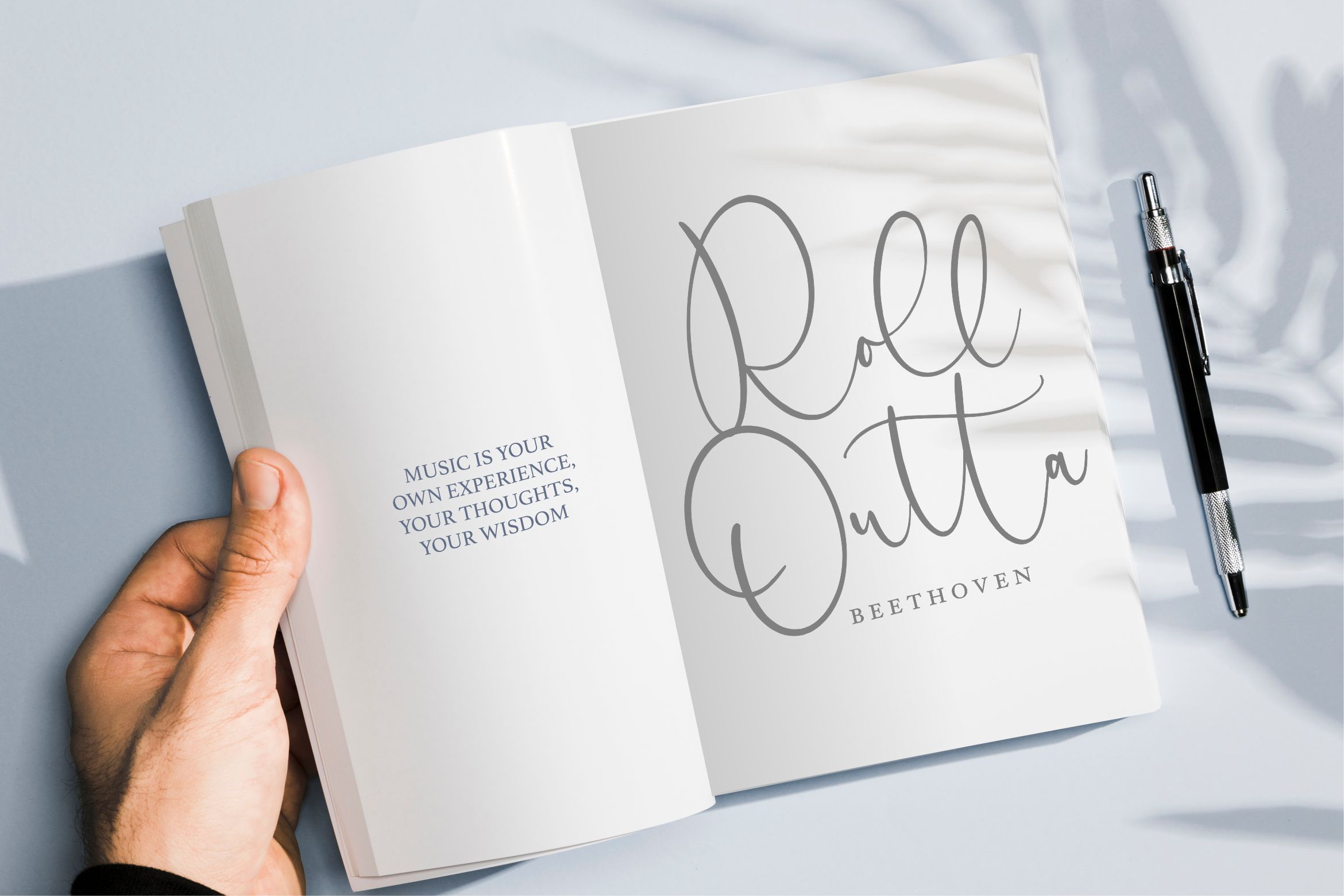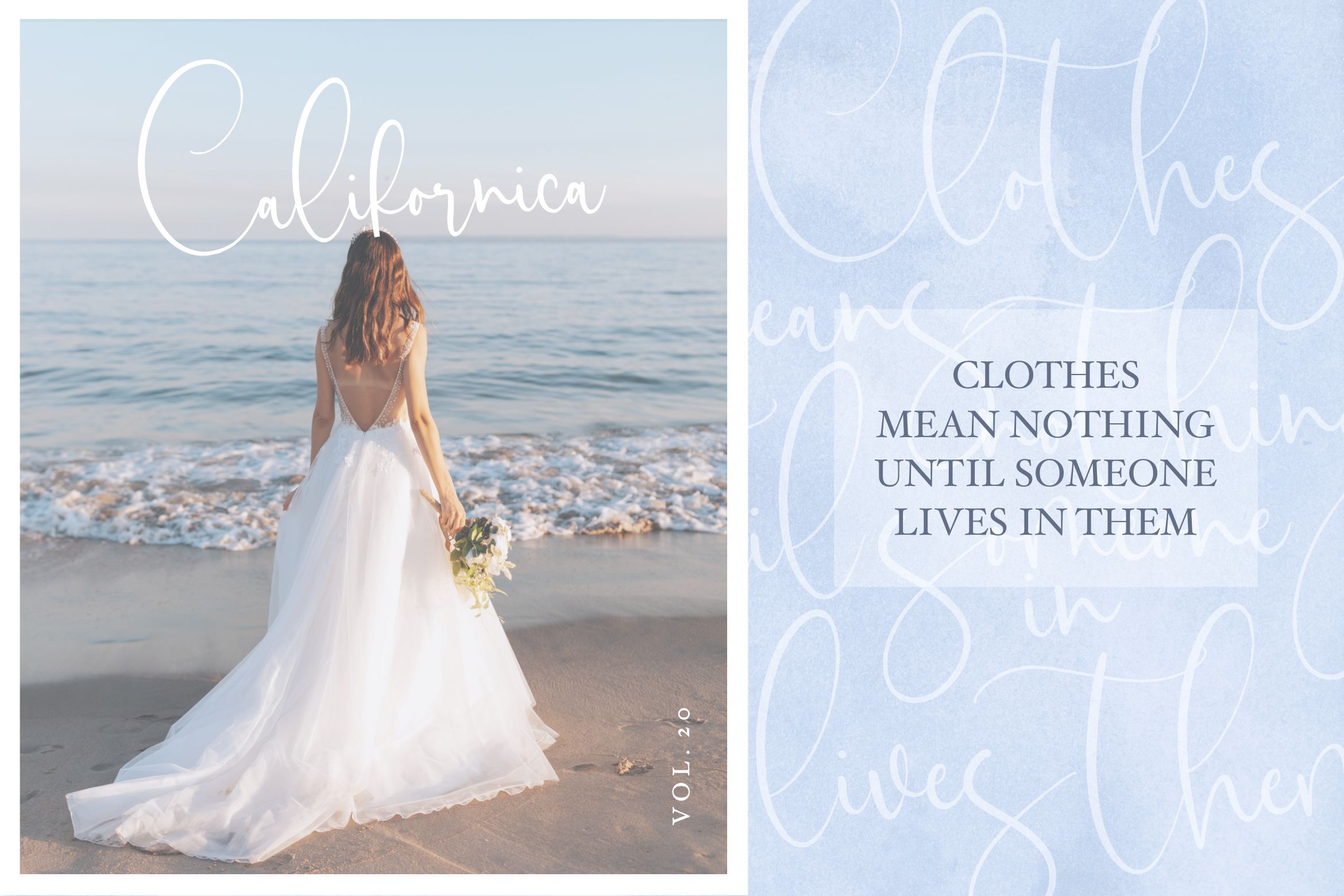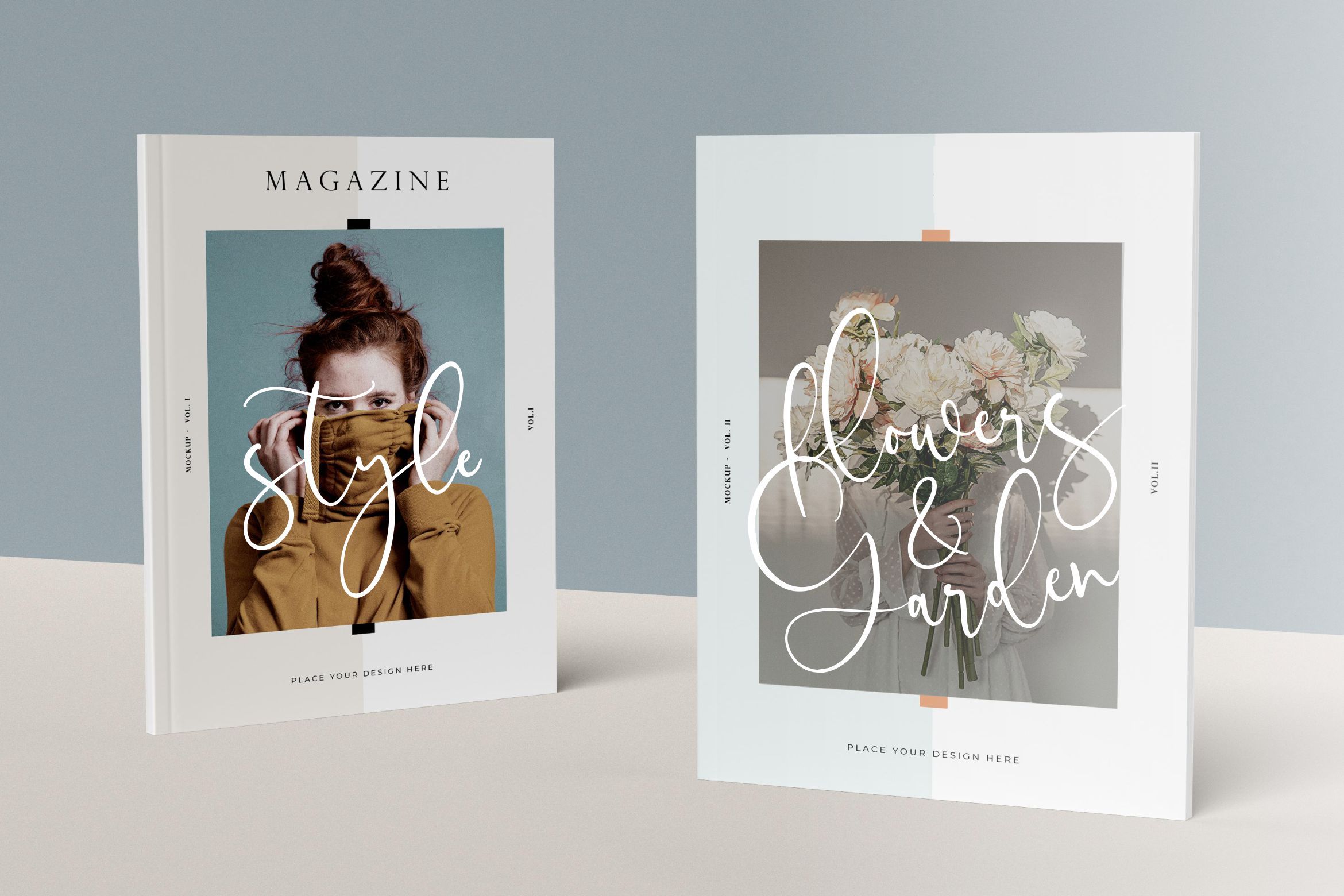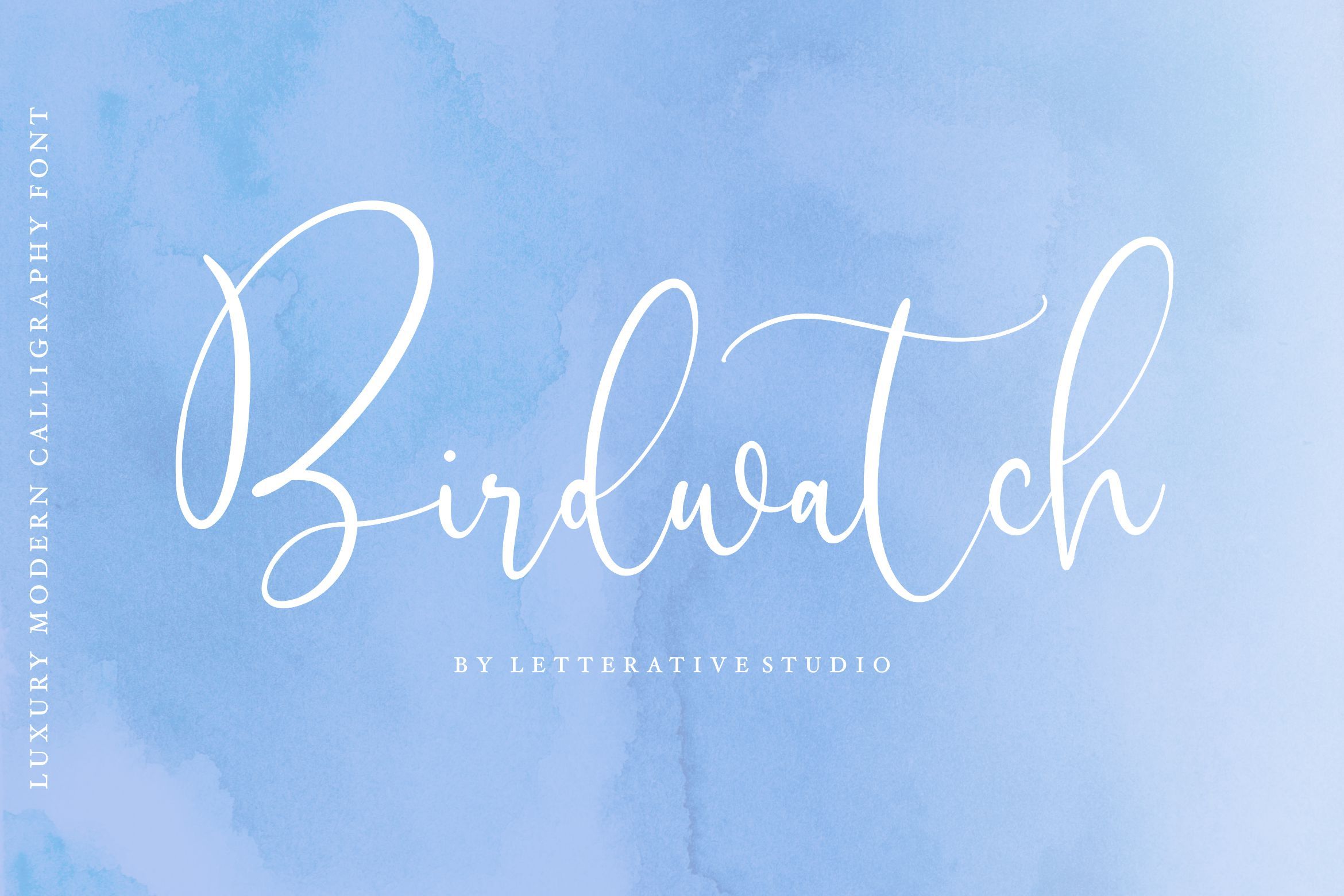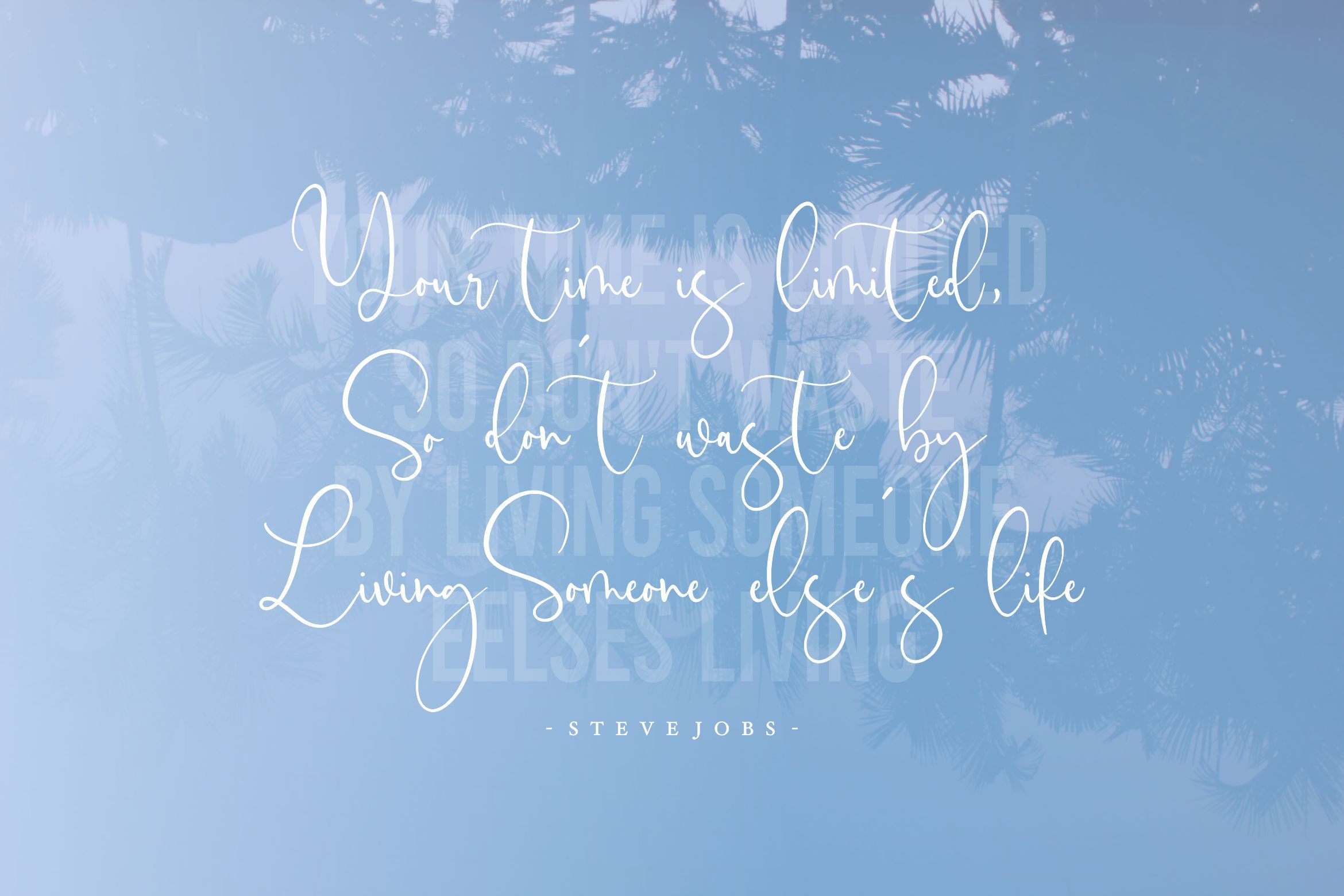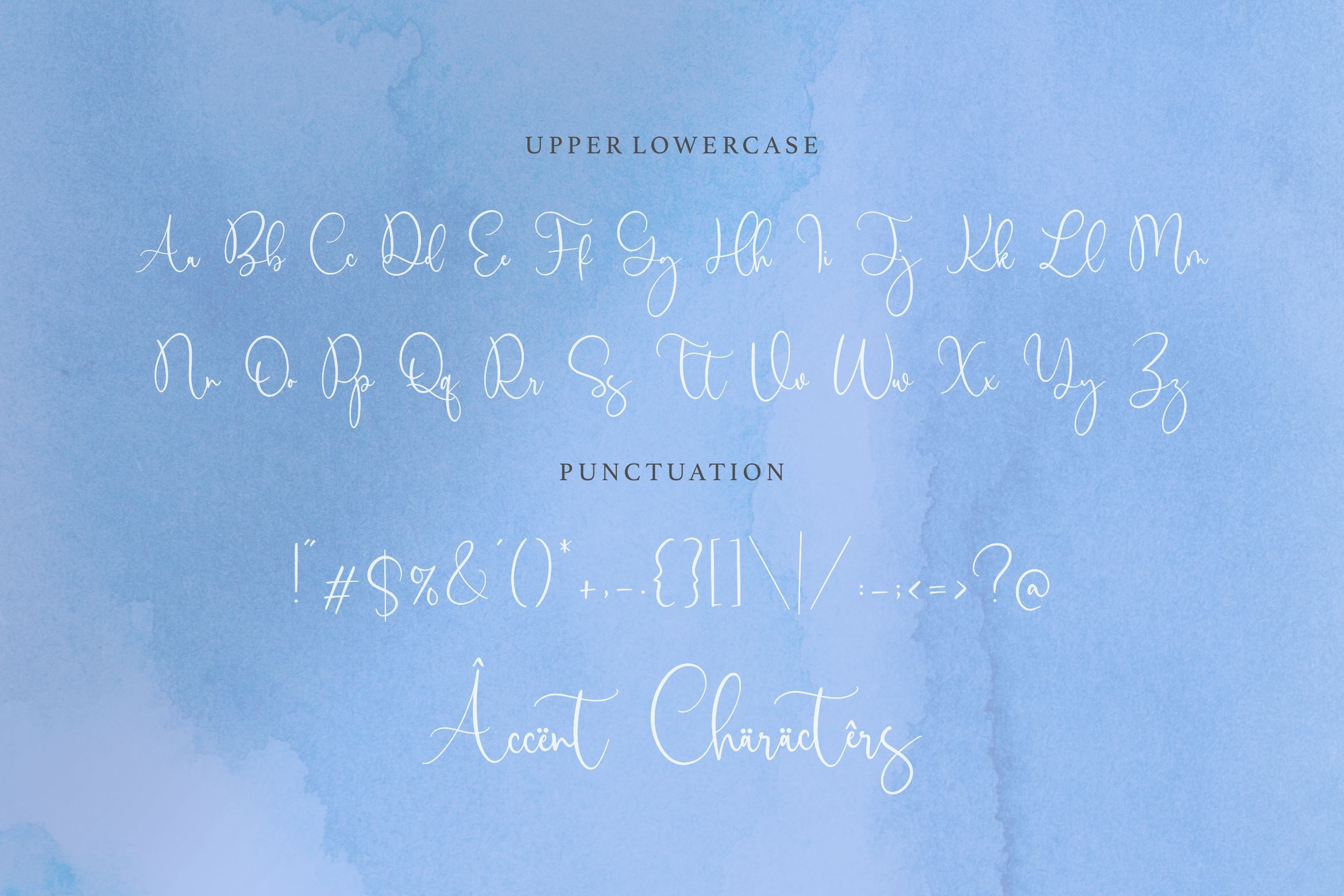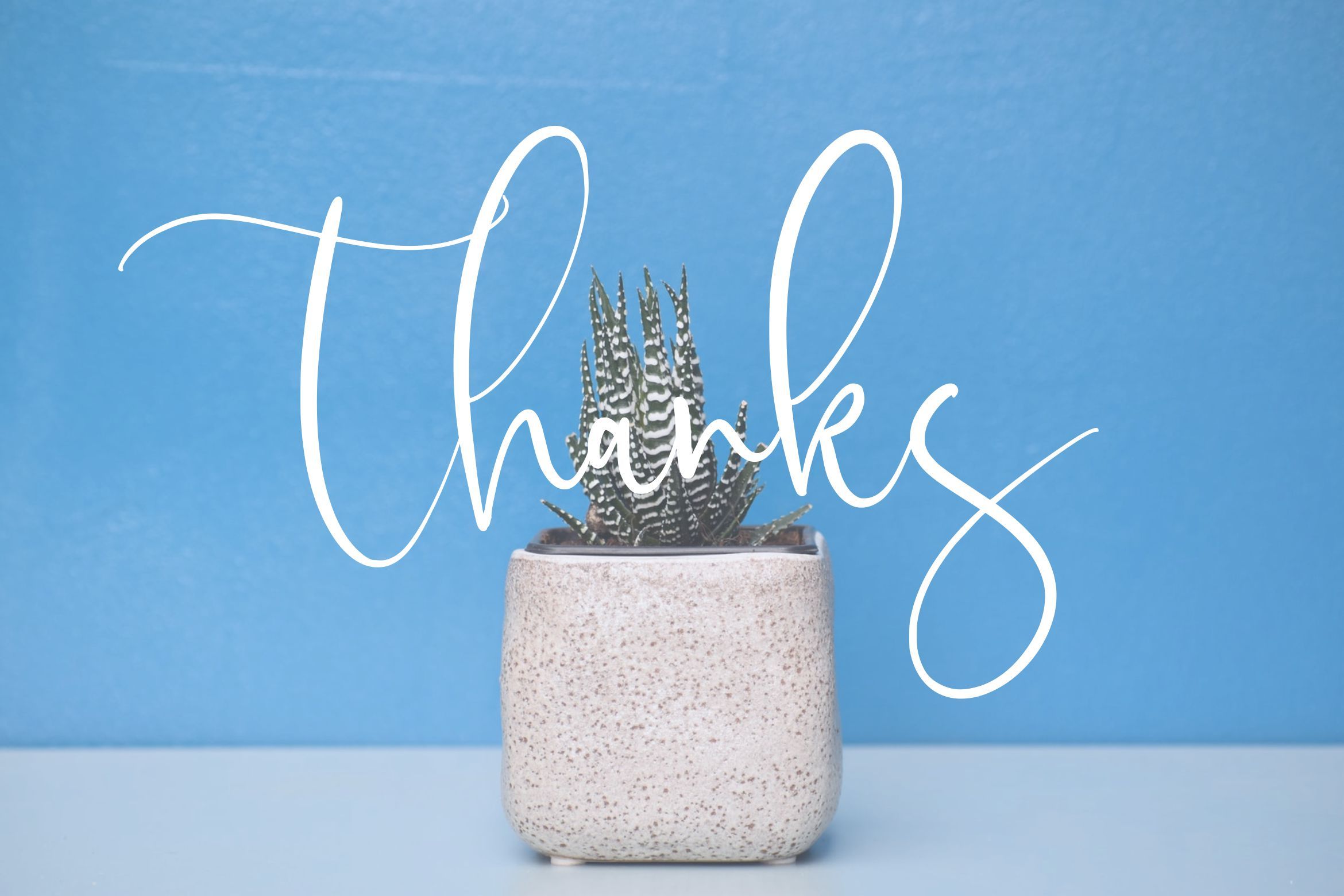
Birdwatch Luxury Modern Calligraphy Font
About Birdwatch Luxury Modern Calligraphy Font
Introducing by Letterative Studio : Birdwatch Font Birdwatch is a Luxury Modern Calligraphy Font Birdwatch is a handwritten font with a luxurious and modern styles. Birdwatch is perfect for product packaging, branding projects, magazines, social media posts, wedding invitations, or just to express words above a nice background. This font includes : TTF and OTF Birdwatch also multilingual support Enjoy the font! Feel free to comment or feedback Send me PM or email Thank you!